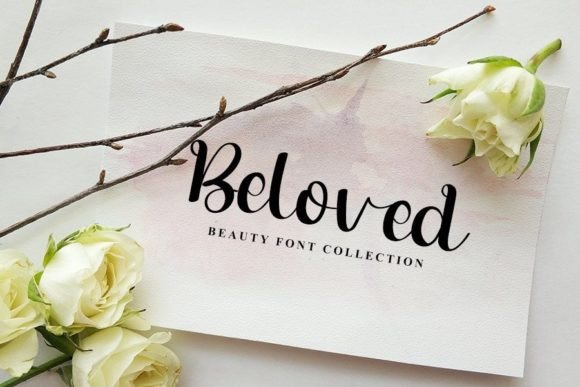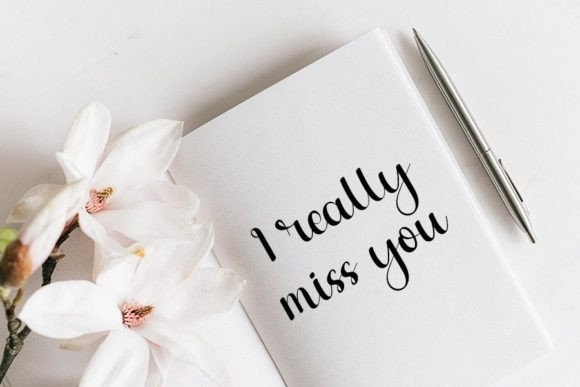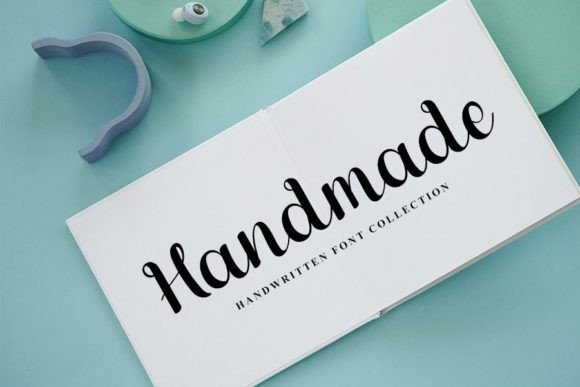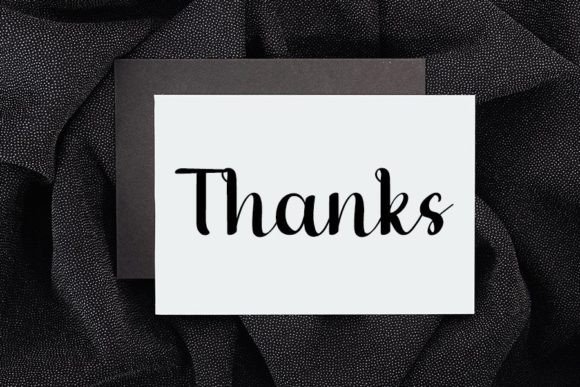
The Designer’s Delight: Bright Font
I’ll never forget the moment I stumbled upon the Bright font. I was working on a project for a client who wanted a elegant and timeless design, but I was struggling to find the right font. I had scoured through countless font libraries, but nothing seemed quite right. That was until I discovered Bright – a neat and beautiful handwritten font that instantly captured my heart. Its elegant touch and distinct style made it the perfect fit for my project, and I knew I had to share it with the world.
So, what makes Bright font so special? Let’s dive into the good stuff and, of course, the not-so-good stuff.
• ✨ Elegant and refined design that’s perfect for projects that require a touch of sophistication
• 💫 Unique and distinct style that sets it apart from other handwritten fonts
• 🌈 Beautifully crafted to evoke a sense of timelessness and classic charm
While Bright font is an excellent choice for many projects, there are a few things to keep in mind:
• 🤔 Some users may find the font a tad too ornate for very casual or playful projects
• ⚠️ Limited availability of certain OpenType features, such as ligatures and stylistic alternates
The Story Behind Bright Font
Bright font was designed by a talented type designer who wanted to create a font that would evoke a sense of timelessness and classic charm. The designer drew inspiration from traditional calligraphy and handwriting techniques to create a font that is both elegant and refined.
Q: What type of projects is Bright font best suited for?
A: Bright font is perfect for projects that require a touch of elegance and sophistication, such as wedding invitations, branding materials, and editorial design.
Q: Is Bright font available in different weights or styles?
A: Currently, Bright font is available in a single weight, but the designer may release additional weights or styles in the future.